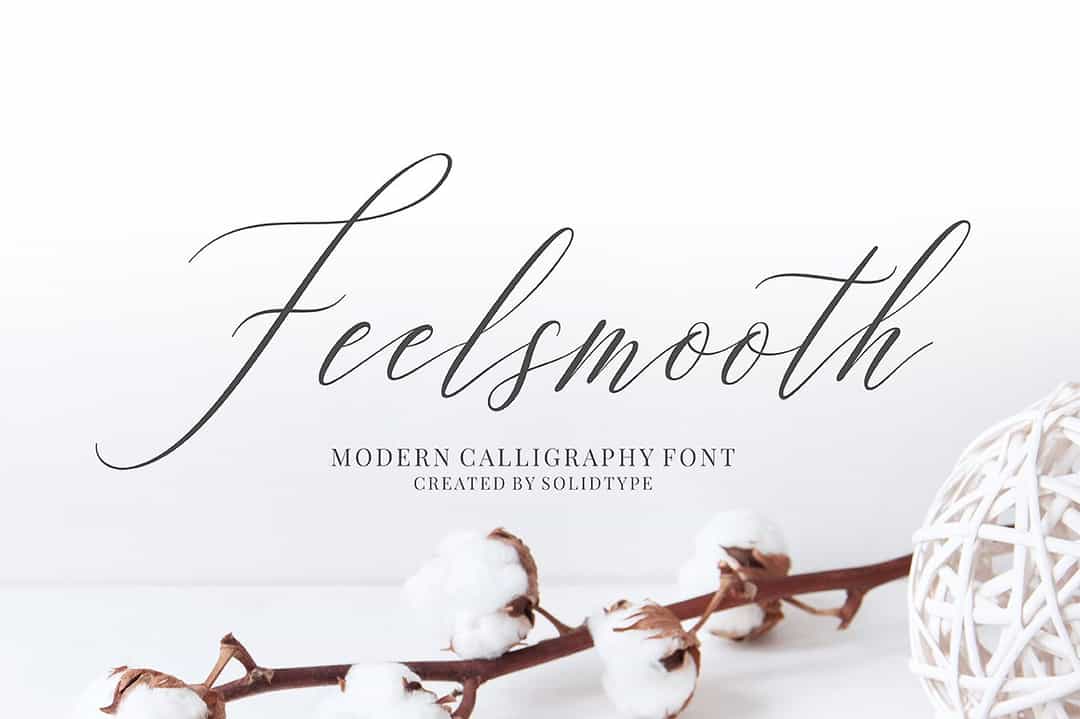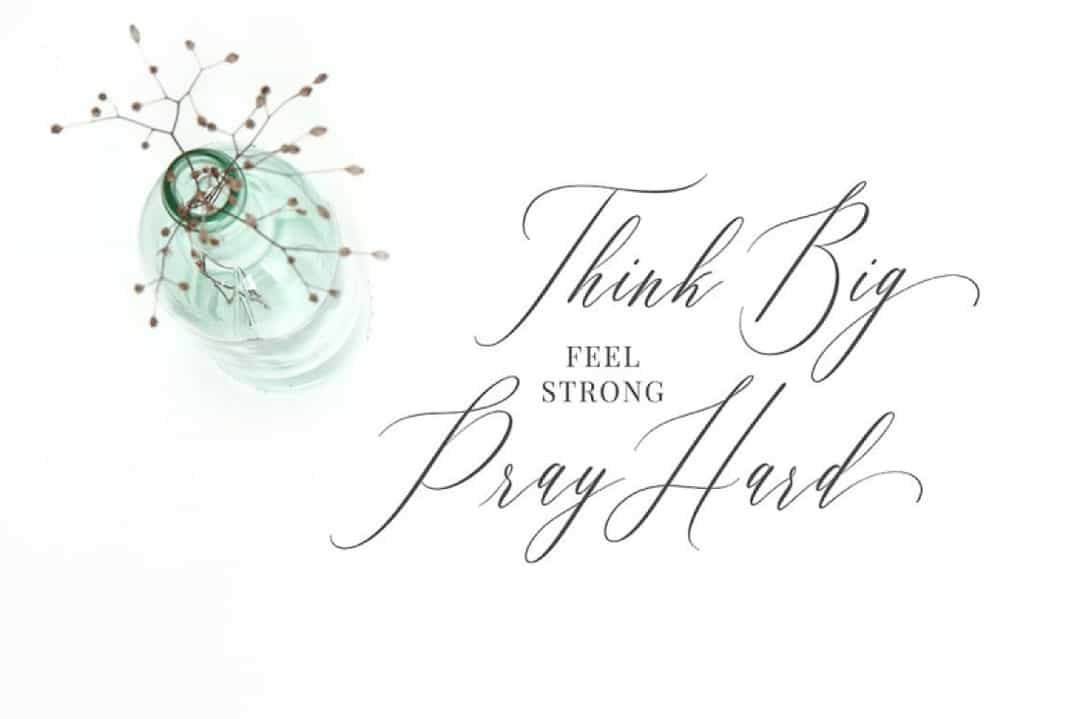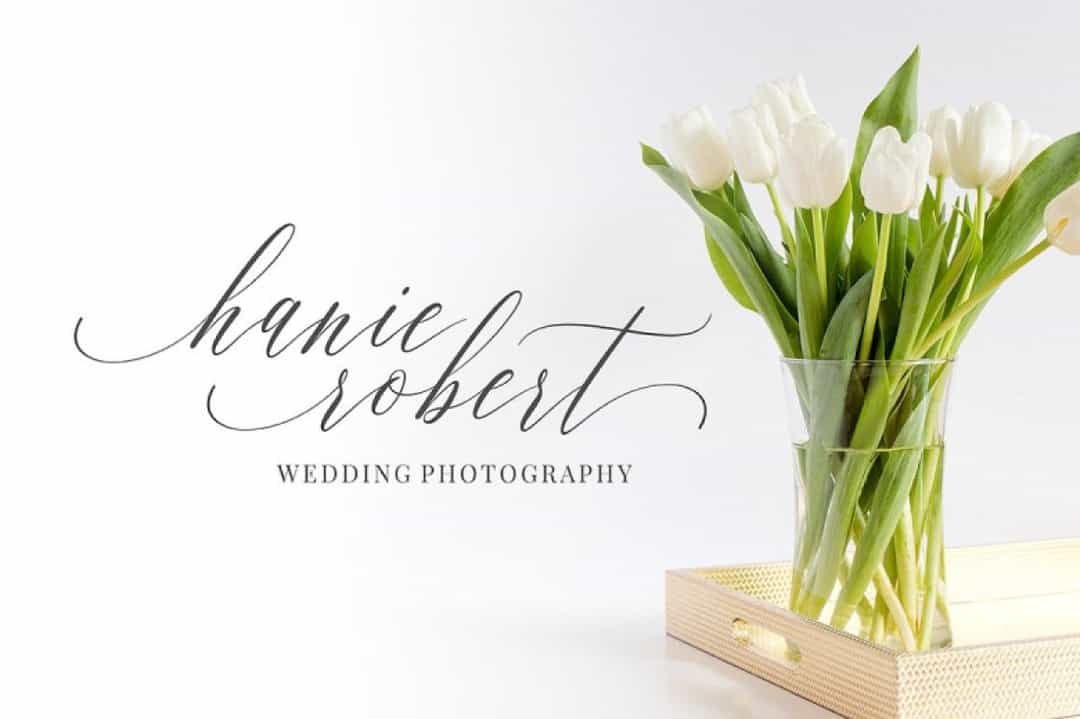
Here is a Feelsmooth font. It is a modern calligraphy font that changes the groove, axis and unique constellation. With 350+ glyphs and 167 alternative characters make something special with Feelsmooth script! Feelsmooth is ideal for logos, greetings, branding, quotes, prints, invitations and crafted imaginatively as you like!